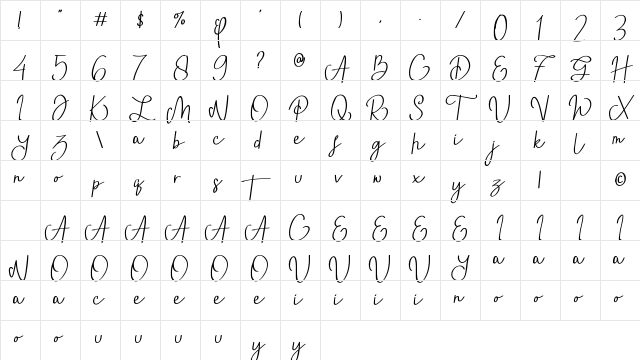
Astriany Regular Free Font
Astriany Regular
Foundry: RantauType
Designer: Yudi Pratama Chandra
Design Context for Astriany
Astriany is a composed and adaptable typeface that performs quietly and consistently across a wide range of design contexts.